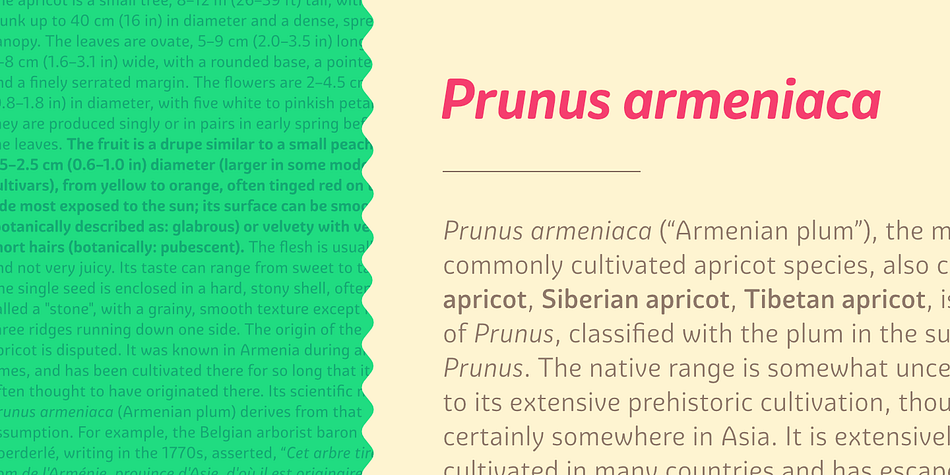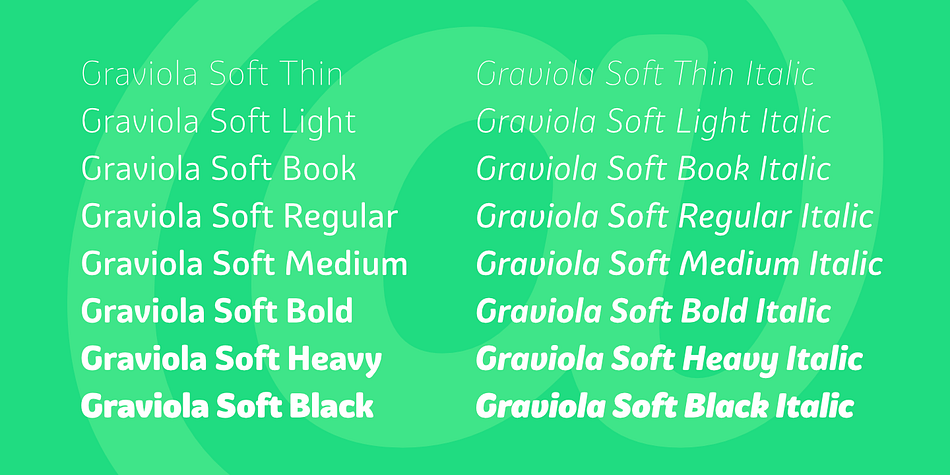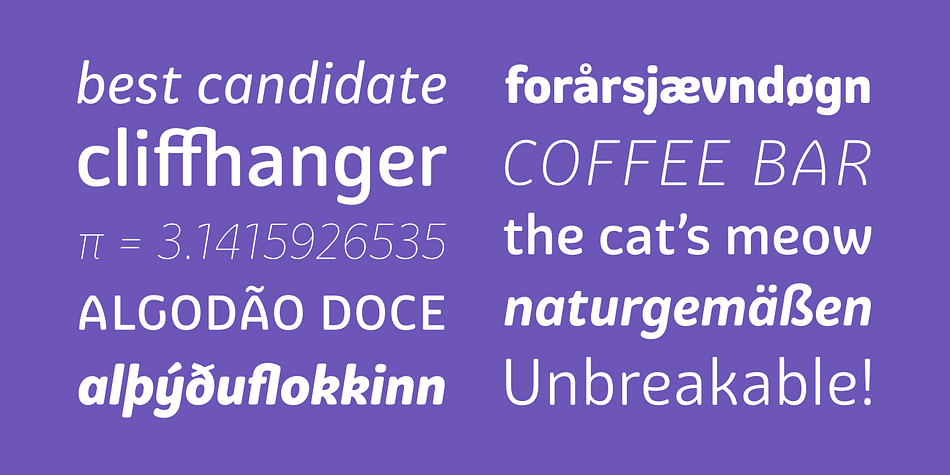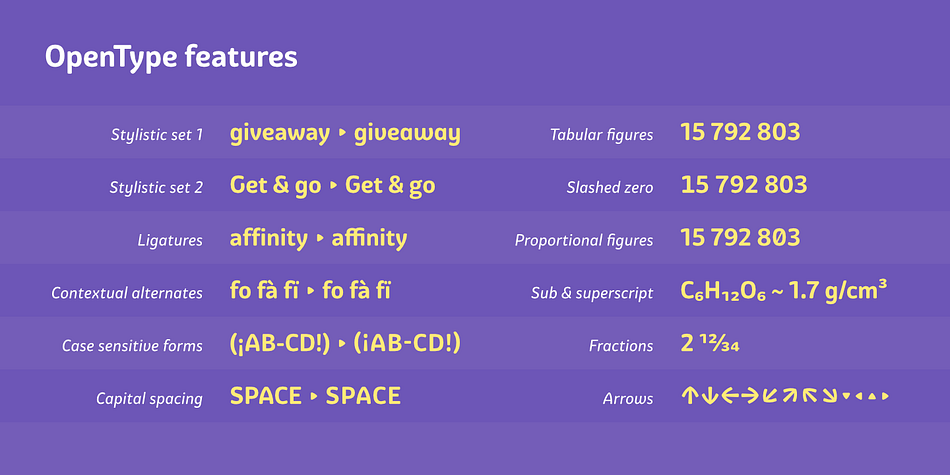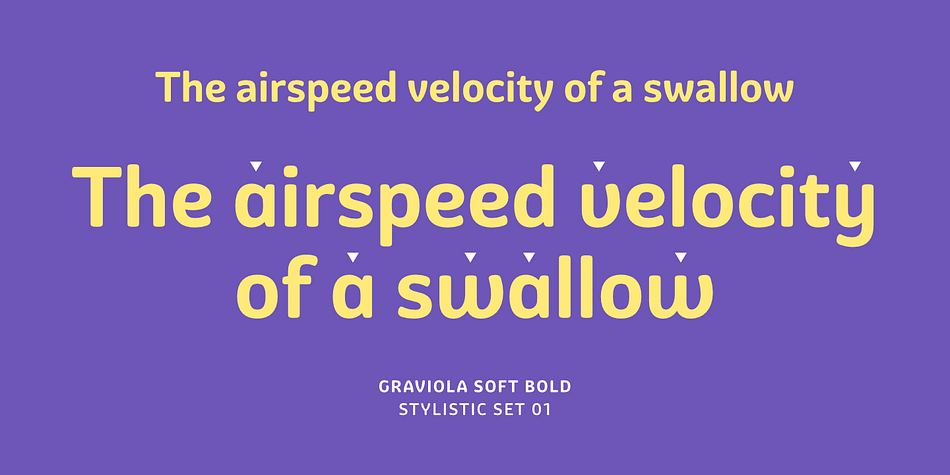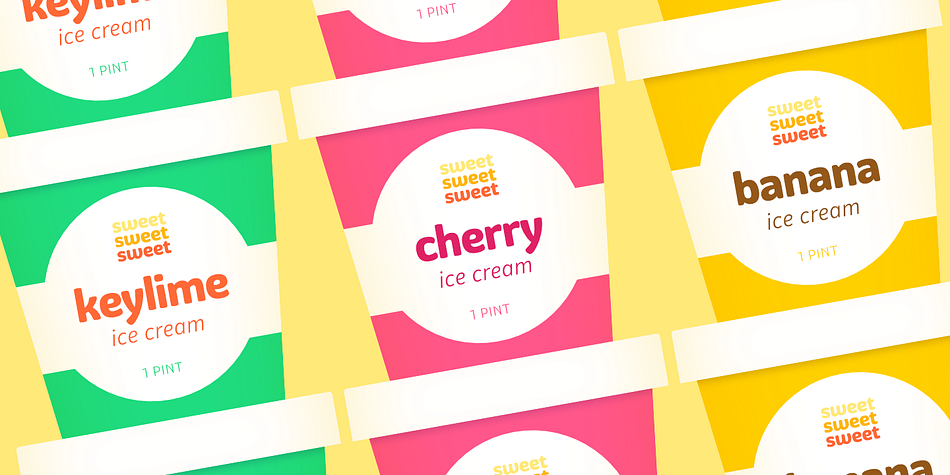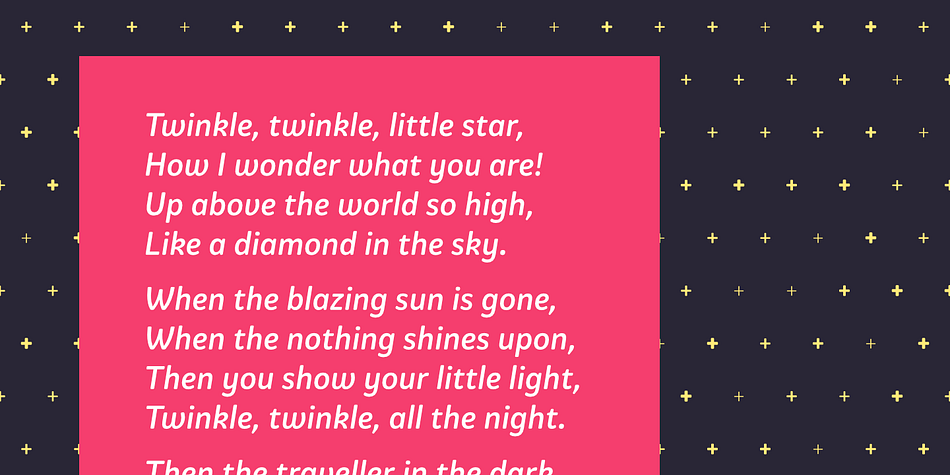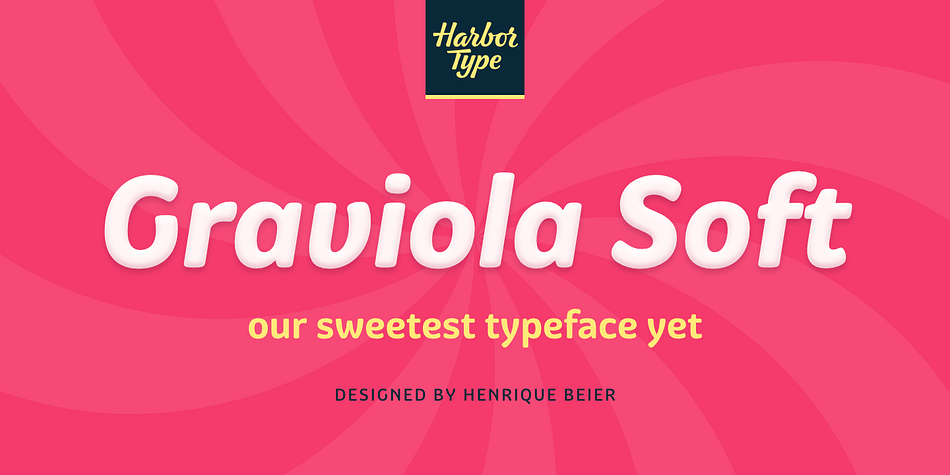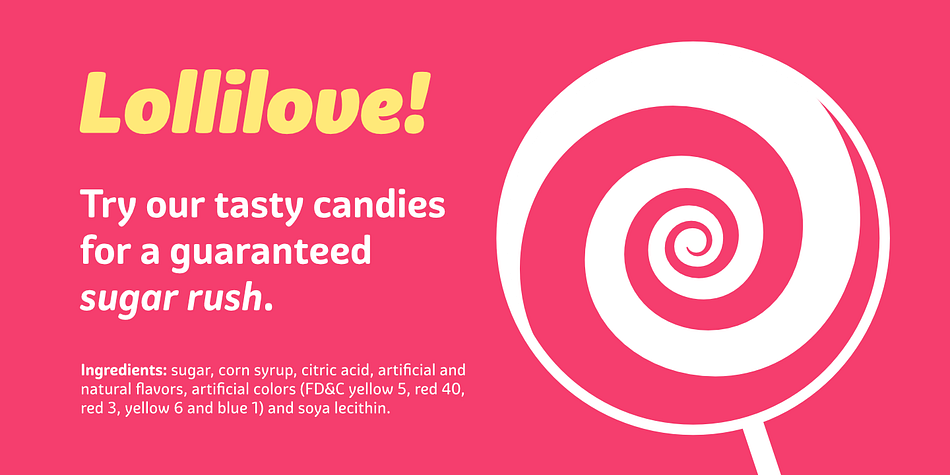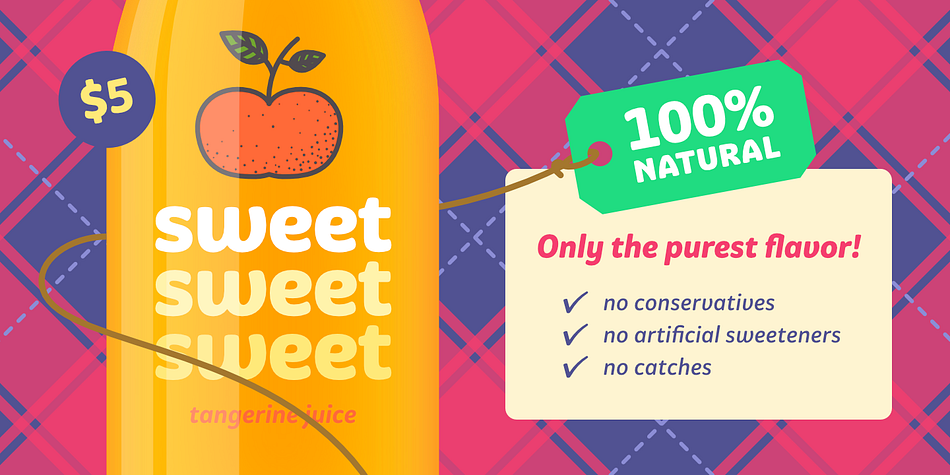
Graviola Soft is a sans serif font family. This typeface has sixteen styles and was published by Harbor Type.
Graviola Soft is a juicy type family. It is based on our Graviola typeface, but we didn’t just round its corners. We redrew every stem and terminal so they would look just right. Combined with curved diagonal strokes and alternate glyphs, Graviola Soft makes for a super friendly typeface.
The family consists of 16 fonts, from Thin to Black and matching italics. While the intermediate ones work for body text, the extreme weights look specially beautiful at display sizes. Each font contains 530+ glyphs, supporting more than 90 languages. Stylistic sets provide alternates in two groupings (a, v, w, y and G, g, &).
We think Graviola Soft works best on packaging, logotypes and headlines, but we’re eager to see what else you can do with it.